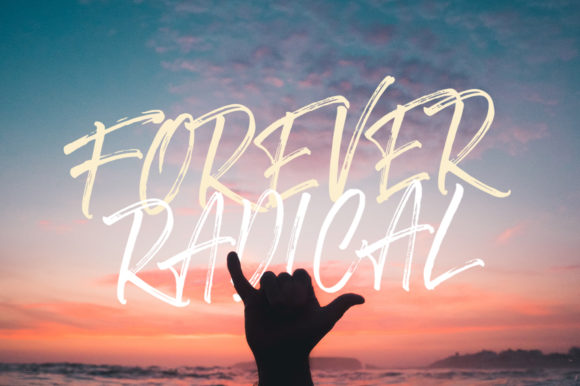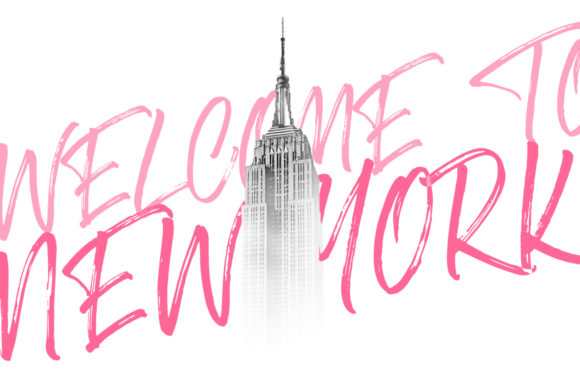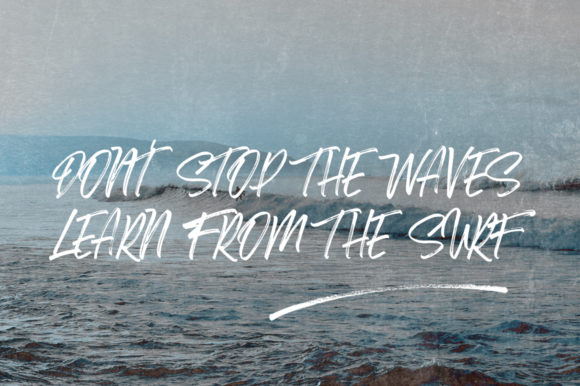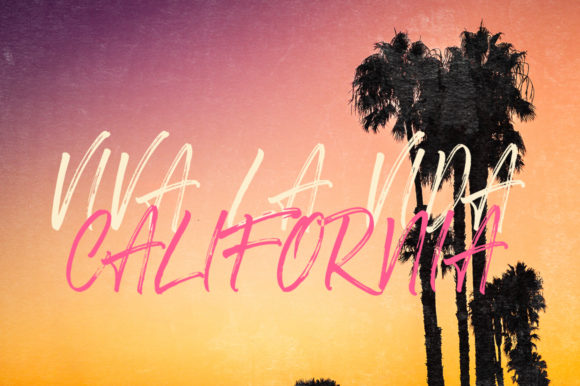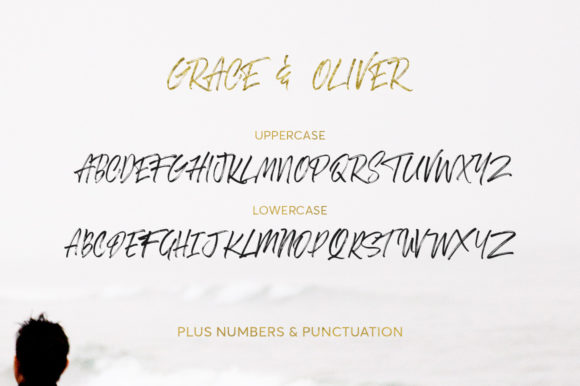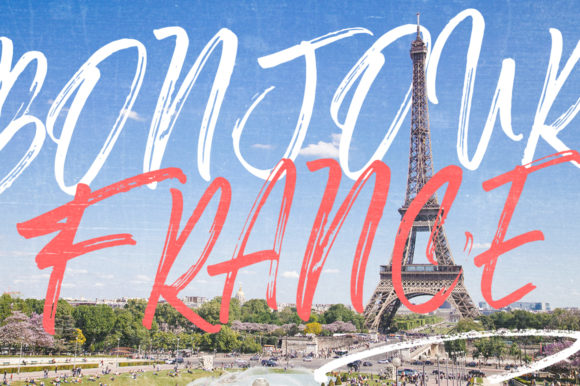
Introducing the Bold and Beautiful Grace & Oliver Font
Are you tired of using the same old fonts in your design projects? Look no further than the Grace & Oliver font, a rough, loud, and proud handwritten font that’s sure to make your designs stand out. With its unique style and versatility, this font is perfect for designers and crafters looking to add a personal touch to their work.
The Unique Style of Grace & Oliver
Grace & Oliver is a one-of-a-kind font that’s perfect for those who want to add a bit of personality to their designs. Its rough, handwritten texture gives it a distinctive look that’s both bold and beautiful. The font’s unique style is perfect for creating eye-catching designs that demand attention.
Whether you’re working on a logo, a poster, or a social media graphic, the Grace & Oliver font is sure to make your design pop. Its loud and proud personality makes it perfect for designs that need to stand out from the crowd.
Uses for the Grace & Oliver Font
The Grace & Oliver font is incredibly versatile, making it perfect for a wide range of design projects. Here are just a few ideas to get you started:
- Logos and branding: The bold and unique style of the Grace & Oliver font makes it perfect for creating memorable logos and branding materials.
- Posters and flyers: The font’s loud and proud personality makes it perfect for creating eye-catching posters and flyers that demand attention.
- Social media graphics: The Grace & Oliver font is perfect for creating social media graphics that stand out from the crowd.
- Invitations and cards: The font’s unique style makes it perfect for creating beautiful and personalized invitations and cards.
Why Choose the Grace & Oliver Font?
There are many fonts to choose from, but the Grace & Oliver font stands out from the rest. Here are just a few reasons why:
- Unique style: The Grace & Oliver font has a unique style that’s unlike any other font on the market.
- Versatility: The font is incredibly versatile, making it perfect for a wide range of design projects.
- High-quality: The font is high-quality and comes with a range of characters and glyphs.
Tips for Using the Grace & Oliver Font
Here are a few tips for using the Grace & Oliver font in your design projects:
- Use it sparingly: The Grace & Oliver font is bold and eye-catching, so use it sparingly to avoid overwhelming your design.
- Pair it with other fonts: The font pairs well with other fonts, so don’t be afraid to experiment with different combinations.
- Experiment with colors: The font looks great in a range of colors, so experiment with different colors to find the perfect look for your design.
| Font Name | Grace & Oliver Font |
| Author | Salt and Pepper Fonts |
The Grace & Oliver font is a bold and beautiful handwritten font that’s perfect for designers and crafters looking to add a personal touch to their work. Its unique style and versatility make it perfect for a wide range of design projects, from logos and branding to social media graphics and invitations. With its ease of use and high-quality characters, this font is sure to become a favorite in your design arsenal.